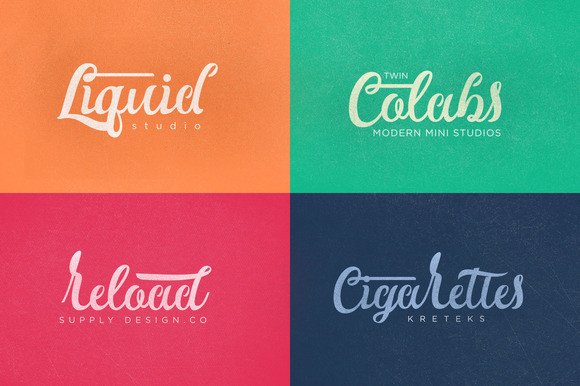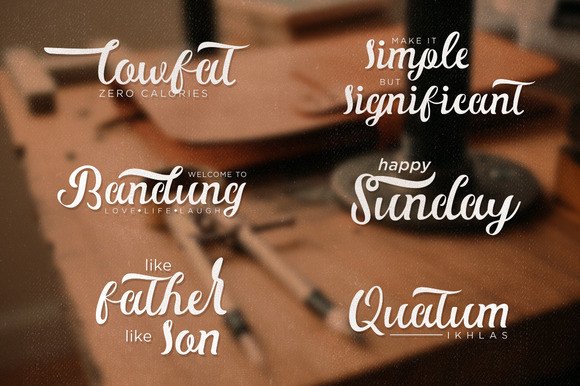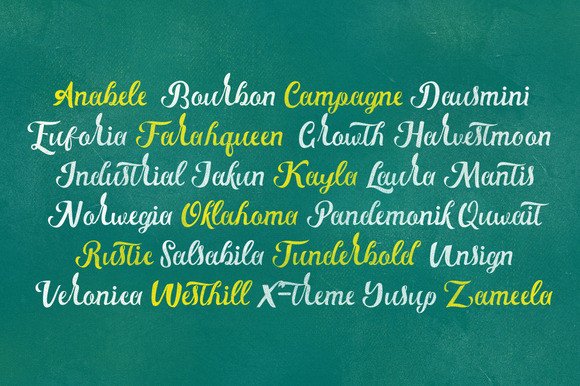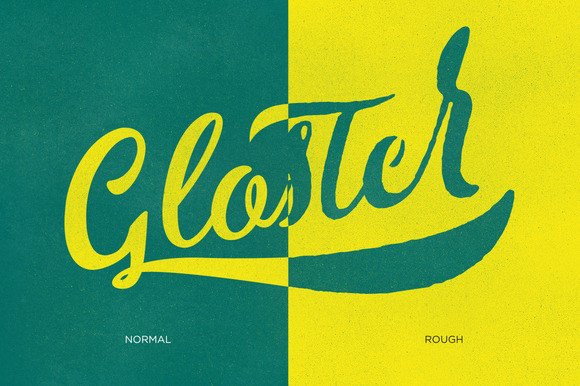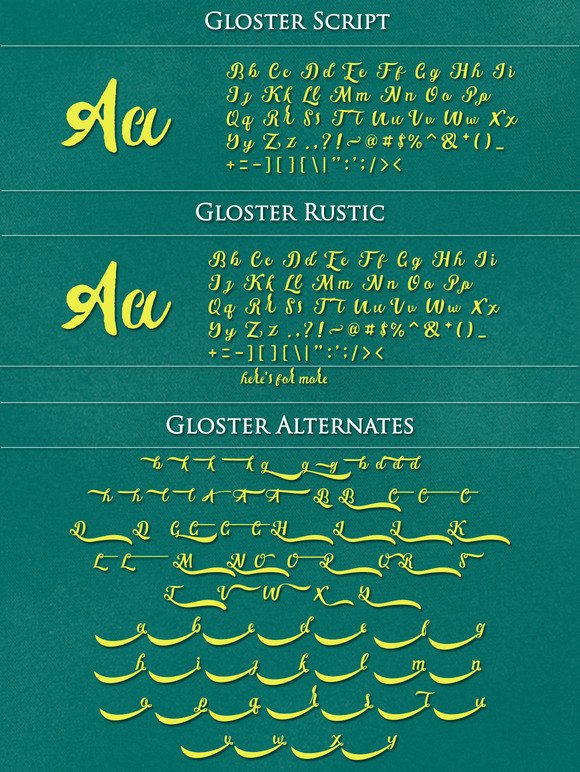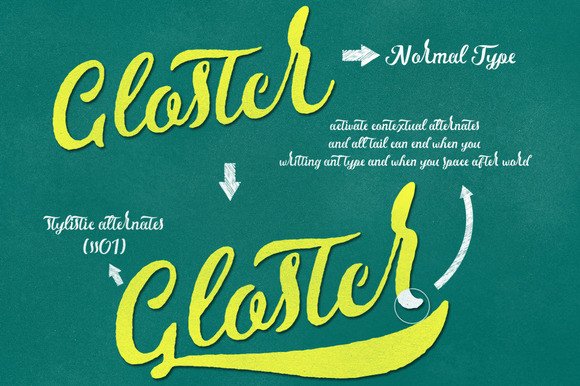
The Gloster Font: A Modern Script with a Vintage Twist
I’ll never forget the struggle I faced while working on a craft project for a client who wanted a vintage-themed invitation. I spent hours scouring the internet for the perfect font, but nothing seemed to capture that perfect blend of modern elegance and rustic charm. That’s when I stumbled upon the Gloster Font, and it was love at first sight! 💕
A Personal Review of Gloster Font
As a designer, I’m always on the lookout for fonts that can elevate my projects and make them stand out. Here’s my honest review of the Gloster Font:
• ✨ The Gloster Font has a unique, modern script style with a vintage and rustic feel that’s perfect for craft and design projects.
• ✅ It’s incredibly versatile and can be used for a wide range of projects, from wedding invitations to branding and packaging.
• 💫 The font has a beautiful, hand-crafted feel that adds a touch of personality to any design.
• 📚 The Gloster Font comes with a range of OpenType features, glyphs, and stylistic alternates that make it easy to customize and experiment with different looks.
While I absolutely love the Gloster Font, there are a few quirks to be aware of:
• ⚠️ Some of the glyphs and special characters can be a bit finicky to access, especially for beginners.
• 🤔 The font can be a bit overused if not paired with other design elements, so be sure to balance it with some clean lines and simple typography.
The Gloster Font was designed with a passion for vintage and rustic aesthetics. The designer aimed to create a modern script font that would evoke a sense of nostalgia and charm. With its unique blend of classic and contemporary elements, the Gloster Font is perfect for crafters, designers, and creative hobbyists who want to add a touch of personality to their projects.
Q: What type of projects is the Gloster Font best suited for? A: The Gloster Font is perfect for craft and design projects, such as wedding invitations, branding, packaging, and more.
Q: Is the Gloster Font easy to read? A: Yes, the Gloster Font is designed to be highly legible, even at smaller font sizes.
Q: Can I modify the Gloster Font? A: While it’s generally not recommended to modify fonts, you can experiment with different OpenType features and glyphs to create a unique look.